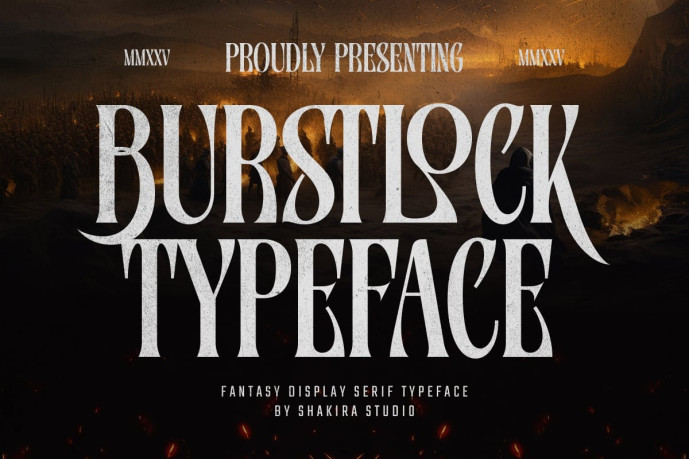
Burstlock Font
Designer: IdhhamCholid
Burstlock Font is a powerful fantasy display serif designed for cinematic impact.With sharp terminals, dramatic proportions and a medieval-inspired structure, Burstlock ensures a strong heroic presence for game titles, fantasy brands, book covers and movie posters.Designed for designers seeking a bold and legendary typeface with an unmistakable character.